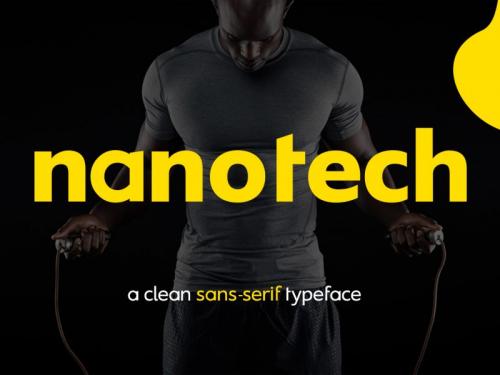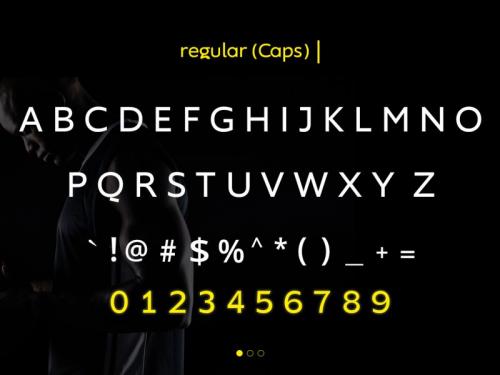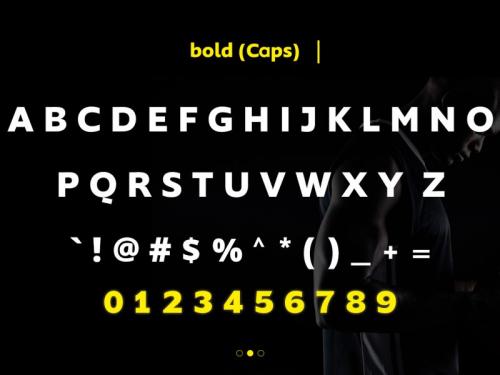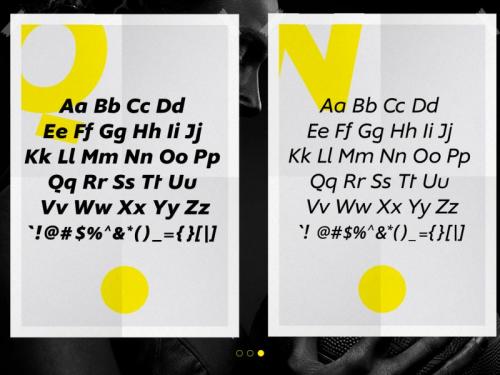
Nanotech LLC Sans Serif Font. It is a clean sans-serif font with strong visual impact. Its primary goal is to give your designs a strong field of attraction.